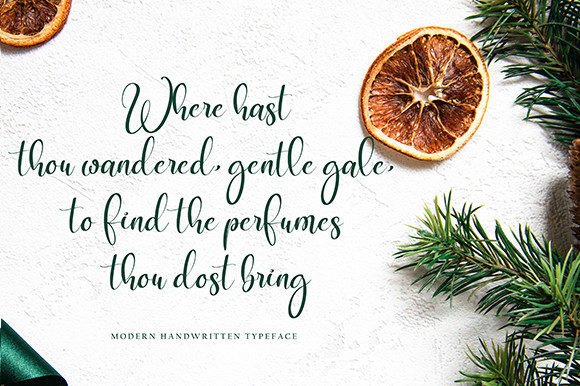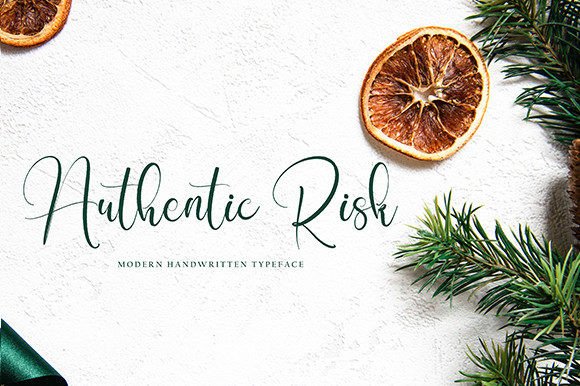
About Egertan Font
Egertan is a flowing handwritten font, described by an elegant touch, perfect for your favorite projects. Fall in love with its incredibly distinct and timeless style and use it to create spectacular designs!